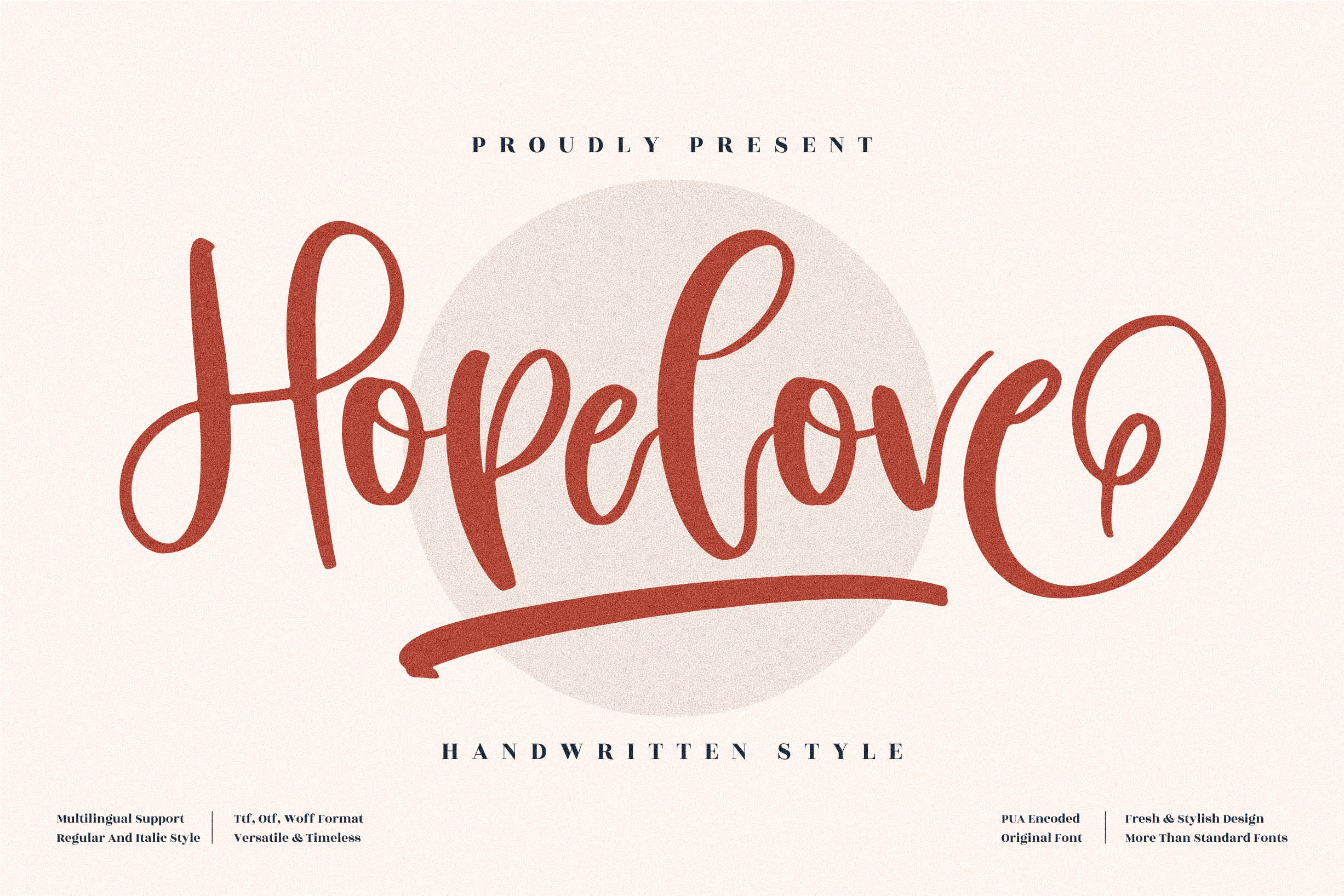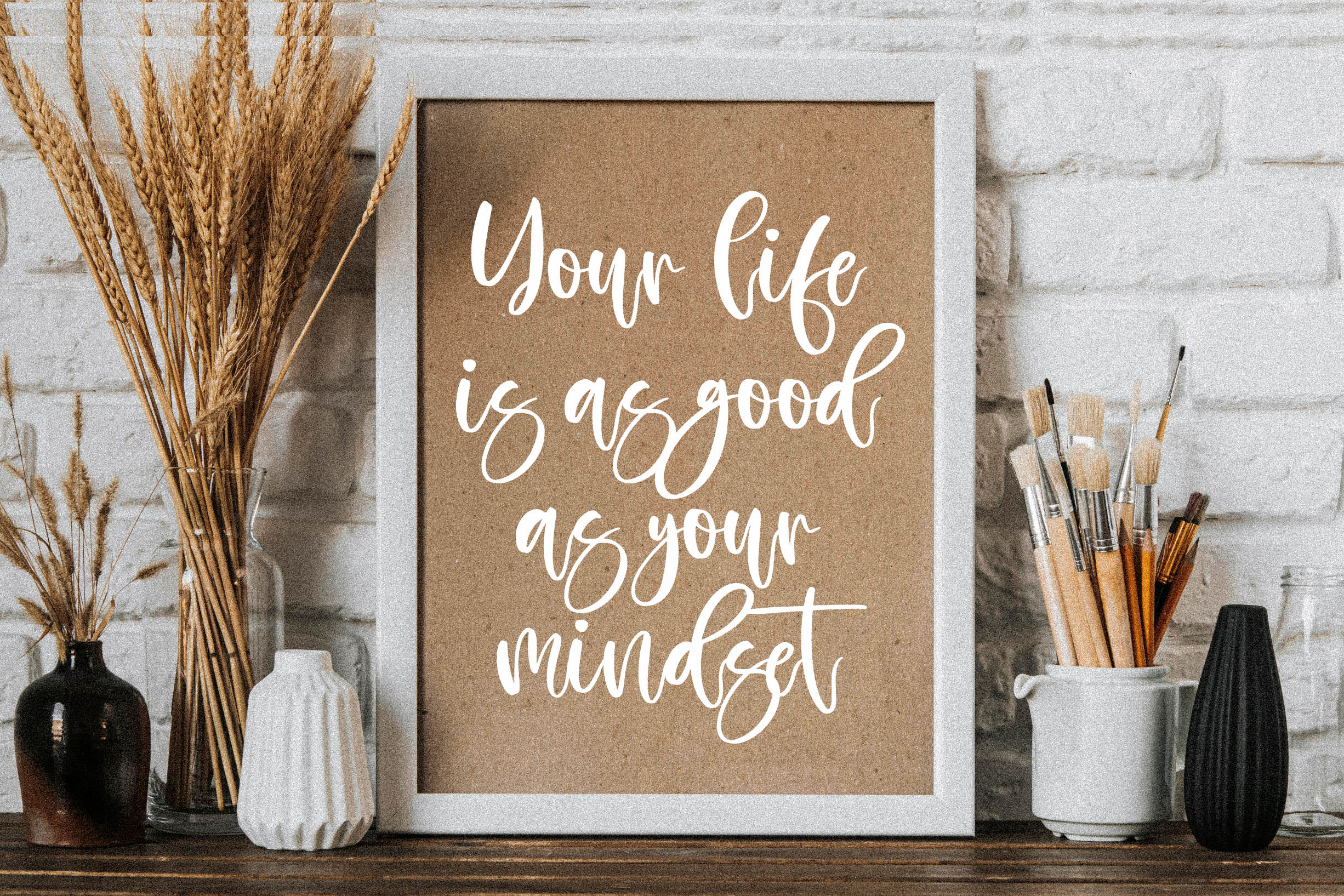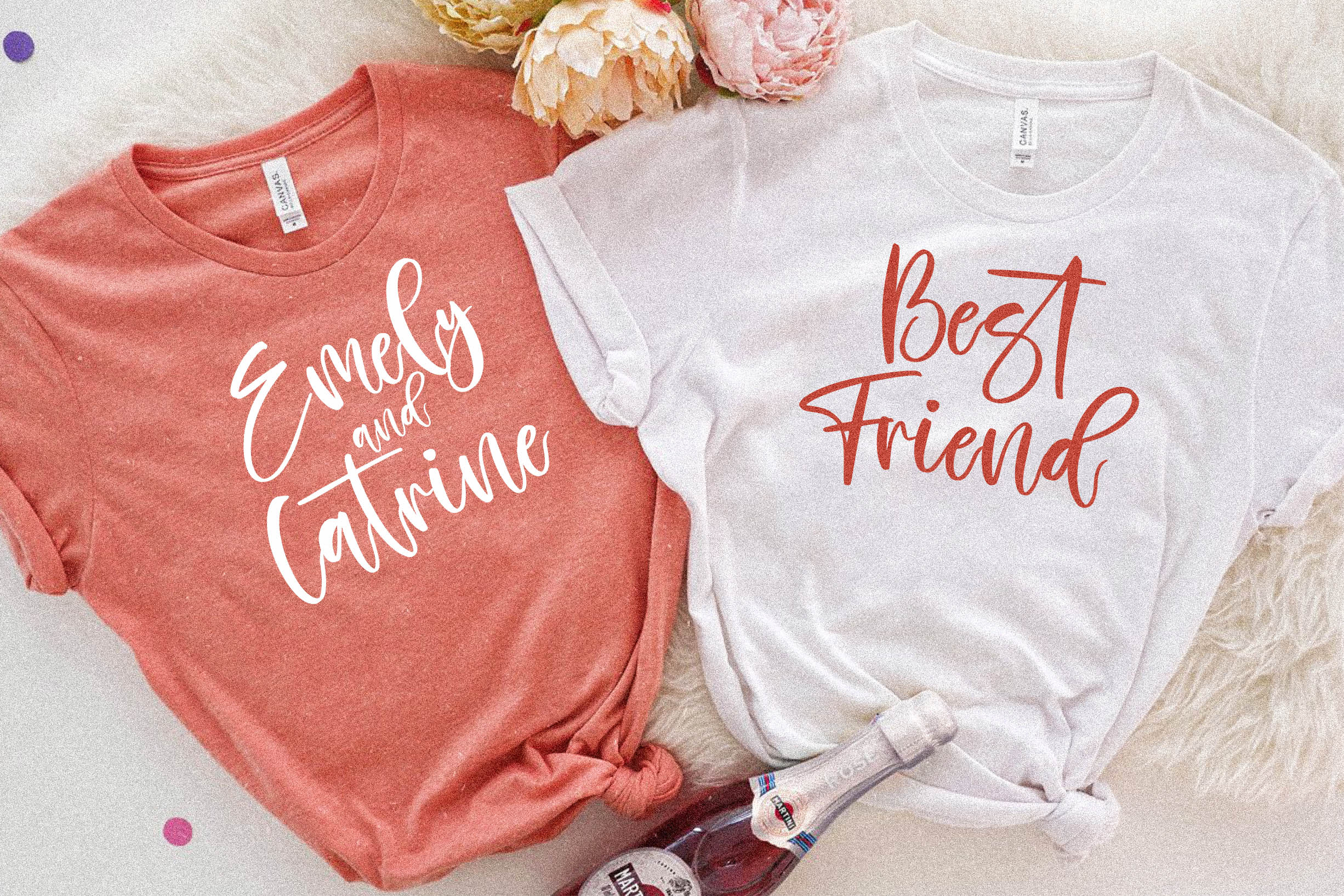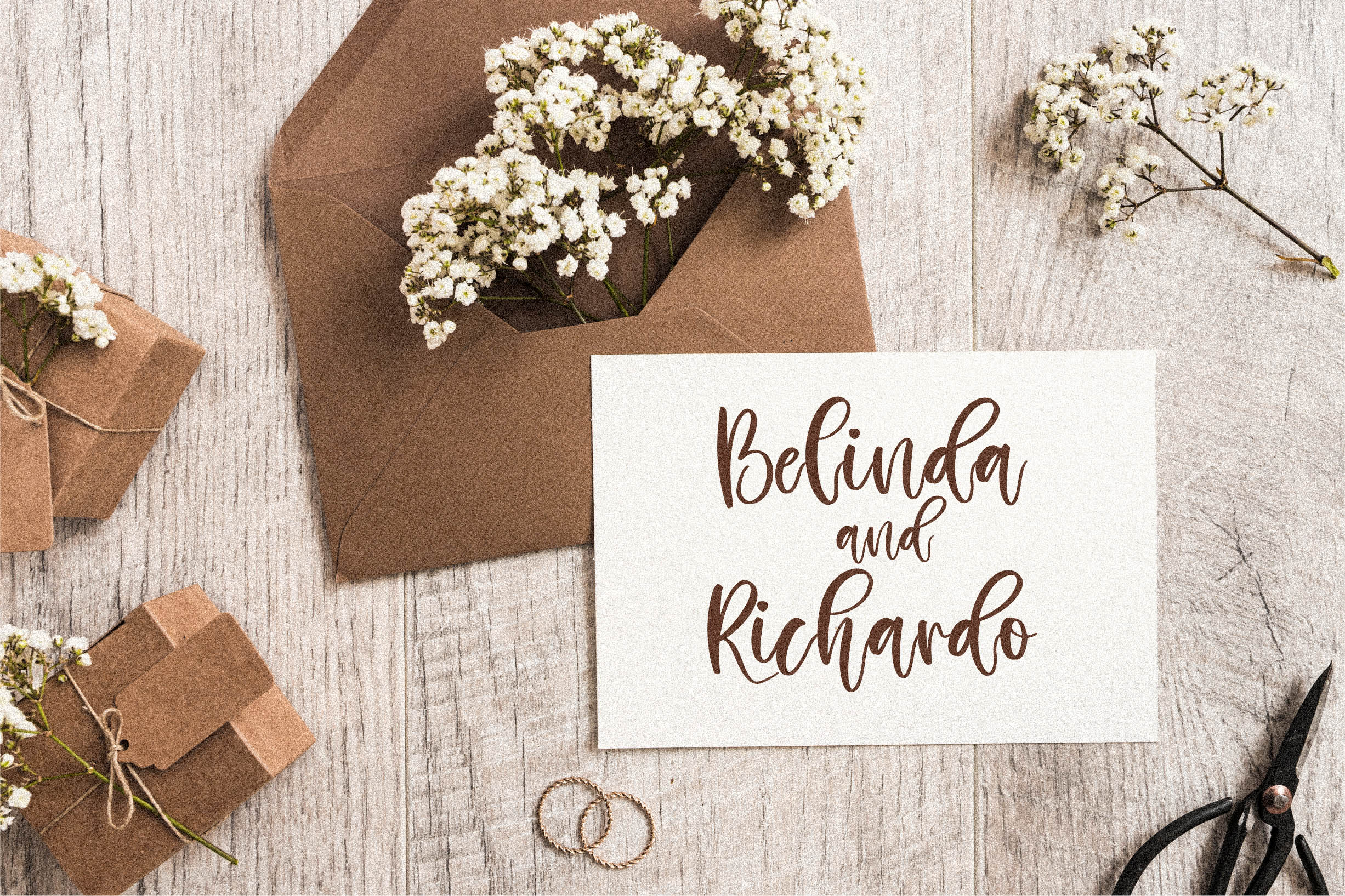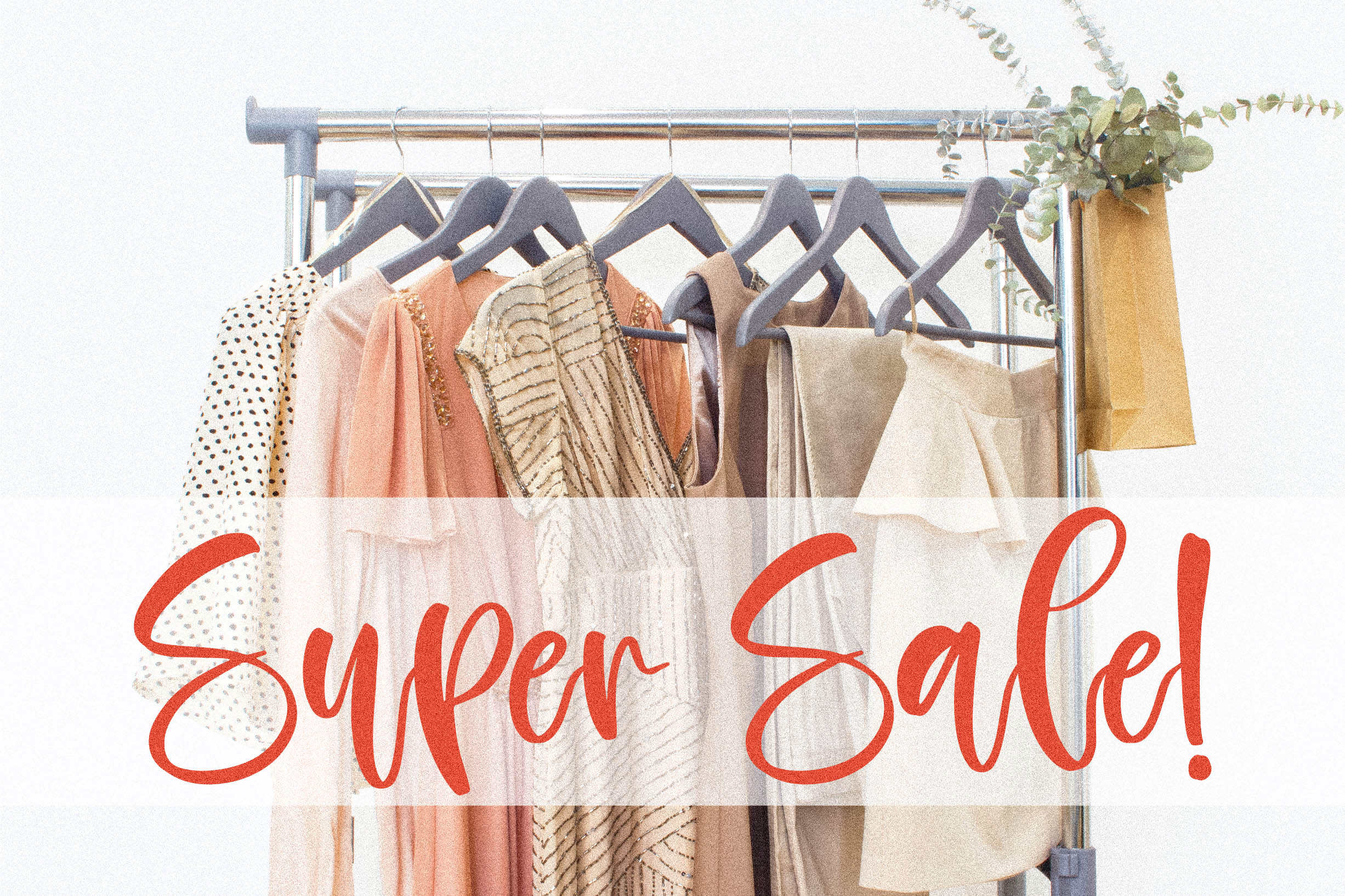
Hopelove Font
Hopelove Script Font
This is a handwritten font, suitable for any projects such as: logos, branding projects, homeware designs, product packaging, mugs, quotes, posters, shopping bags, t-shirts, book covers, name card, invitation cards, greeting cards, label, photography, watermark, special events, and all your other luxury projects that need a handwritten taste.